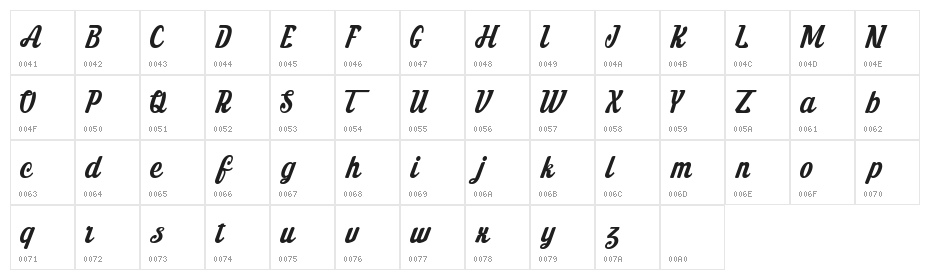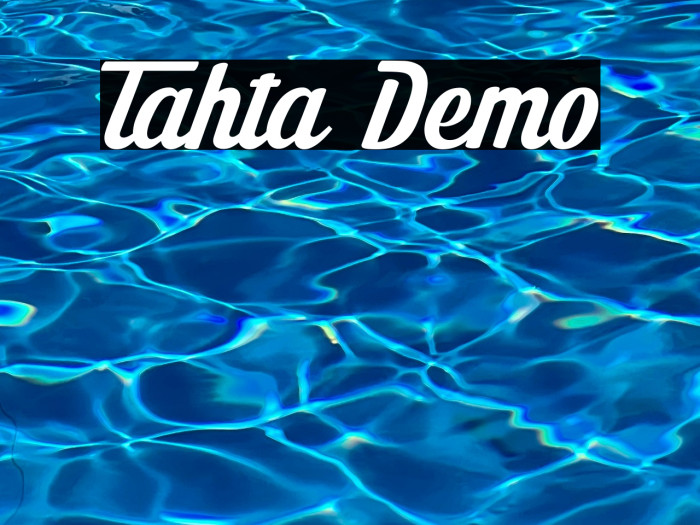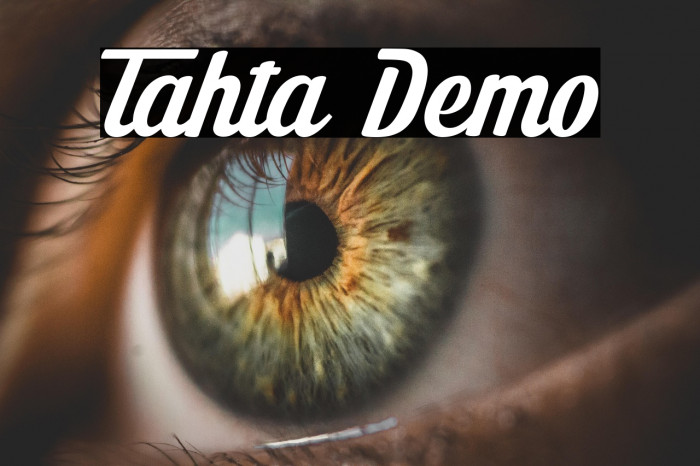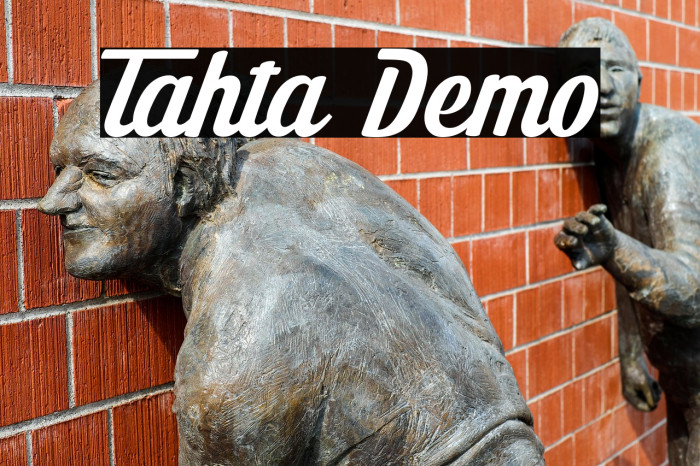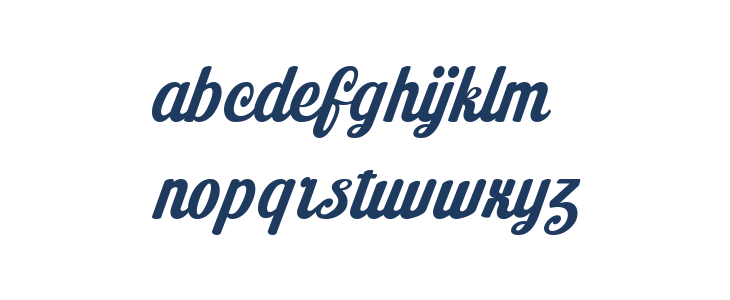
Tahta Demo Font
Tahta Demo Description
This font features a bold, cursive style with a strong emphasis on fluidity and elegance. The letters are connected, creating a seamless flow that is both dynamic and visually appealing. The uppercase letters exhibit a slight slant, enhancing the script-like appearance, while the lowercase letters maintain a consistent rhythm. The font's bold weight adds a sense of authority and presence, making it suitable for impactful designs. The character spacing is tight, contributing to the cohesive look of the text. This font is ideal for projects that require a touch of sophistication and flair.